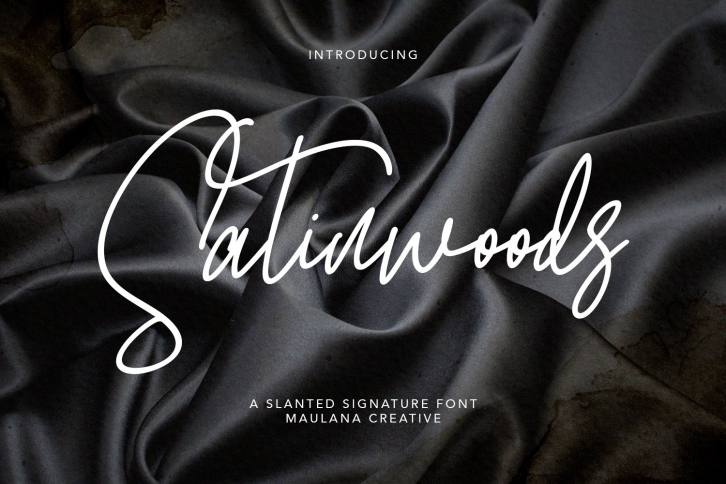
Satinwoods Slanted Signature Font Download
Satinwoods Slanted Signature is a gorgeous font that was realeased on February 24, 2021. The font can be used in many style contexts and design environments. Perfect for invitations, magazines, websites, logos, and more! It was designed by Maulana Creative and the file size is 5.74 MB. Thanks for checking out this font!